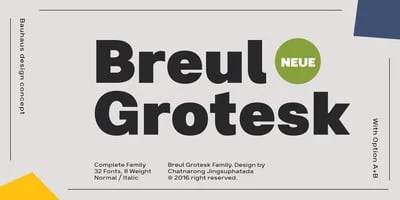
Breul Grotesk Font
Breul Grotesk Font is ideal for contemporary corporate branding, industrial design projects, modern architectural firms, tech company identities, minimalist product packaging, urban planning materials, construction industry marketing, engineering consultancy branding, manufacturing company communications, and sophisticated design applications that require clean functionality and Germanic precision.
What makes Breul Grotesk Font exciting is its masterful execution of neo-grotesque principles through its precisely engineered letterforms that combine Swiss design methodology with contemporary innovation, creating typography that is both functionally superior and aesthetically compelling. This sophisticated typeface embodies the spirit of modern industrial design with its systematic character that speaks of precision manufacturing, efficient workflows, and the kind of methodical excellence that drives contemporary business success and technological advancement.
The Breul Grotesk Font family includes comprehensive weight variations from thin to black, along with matching condensed and extended widths that provide complete typographic flexibility. Special technical symbols, industrial ornaments, and systematic character sets complement the main typeface, while mathematically precise spacing ensures optimal readability for both detailed technical documentation and large-scale corporate communications.
Breul Grotesk Font offers modern businesses access to typography that represents cutting-edge design thinking. Its systematically crafted letterforms maintain exceptional legibility while projecting an image of technical competence and contemporary sophistication. The font's versatile nature adapts seamlessly from intimate product specifications to massive industrial facility signage.
Engineer design excellence with Breul Grotesk Font and create communications that demonstrate systematic thinking while building the professional credibility that drives modern business success.